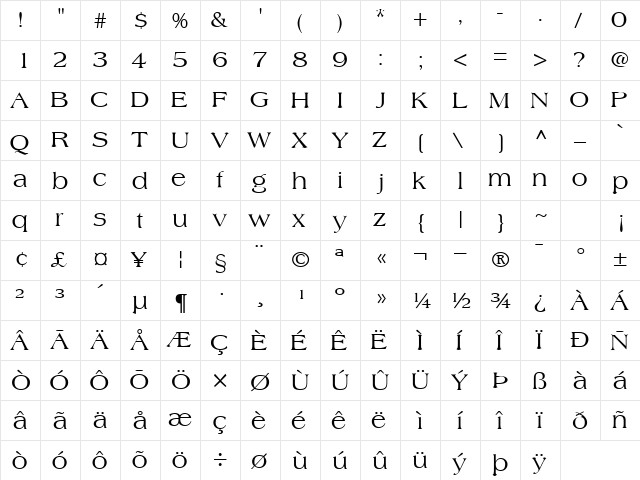
CountrysideSSK Regular
Design Context for CountrysideSSK Typeface
CountrysideSSK offers clean, dependable letterforms without strong stylistic allegiance, making it a practical choice for designers who need flexibility.